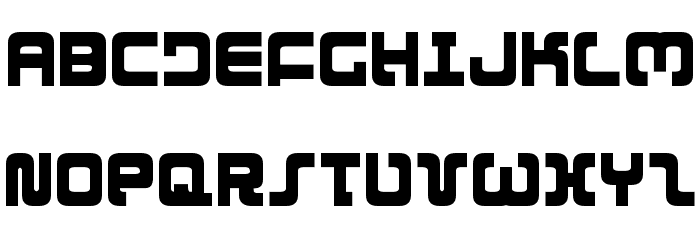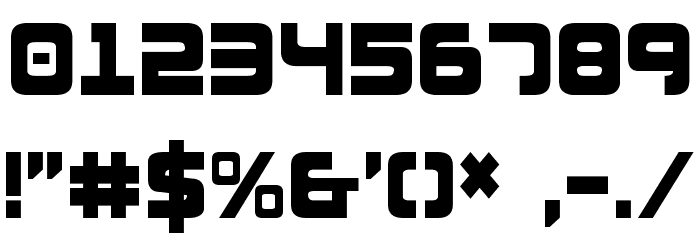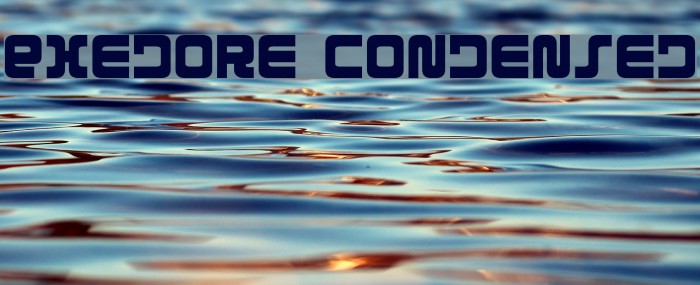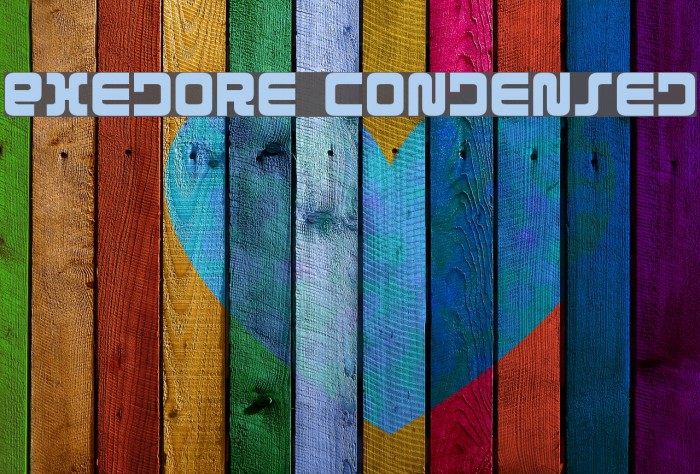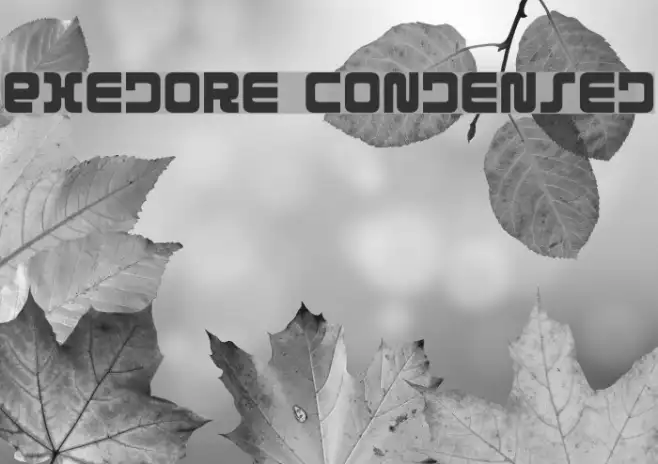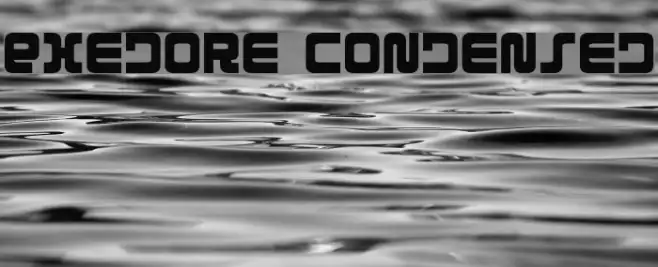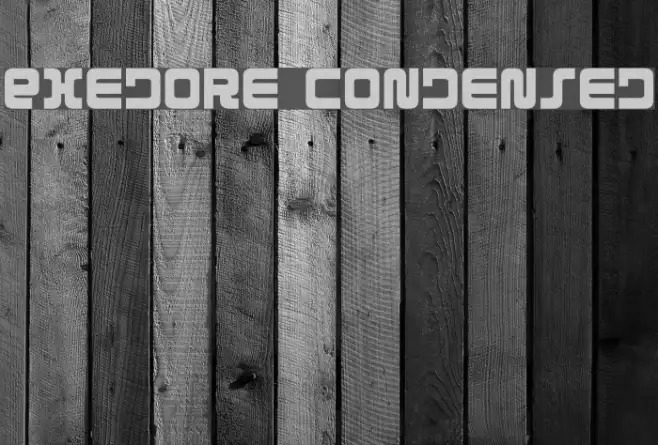
Exedore Condensed Font
This font features a bold, geometric design with a distinctly modern and futuristic feel. The characters are condensed, giving them a compact appearance, while maintaining a strong presence. The rounded edges and uniform stroke width contribute to a sleek and cohesive look. The uppercase and lowercase letters are consistent in style, with a slight variation in size and shape. Numbers and special characters are designed to match the overall aesthetic, ensuring a harmonious appearance across all text. This font is ideal for projects that require a contemporary and impactful visual style.
A bold, geometric, and modern condensed font with a futuristic feel.
- Proposed Projects: Ideal for branding, posters, digital interfaces, and any project needing a modern, impactful look.
- Use Case: Headlines, Logos, Digital Interfaces